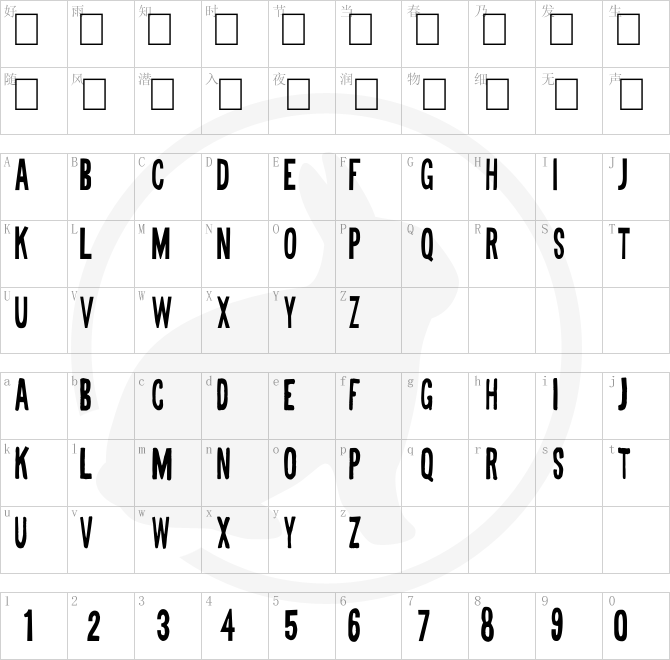
- Font Name:Half Cut Gothic
Half-Cut-Gothic.ttf is a very beautiful artistic font, Half-Cut-Gothic.ttf is widely used in the design and printing of various books and pictures,Half-Cut-Gothic.ttf has a strong visual impact,Half-Cut-Gothic.ttf is a commonly used font in newspapers, magazines and books, and is used in posters, e-commerce Poster design, store design, logo design, font design and other fields.Half-Cut-Gothic.